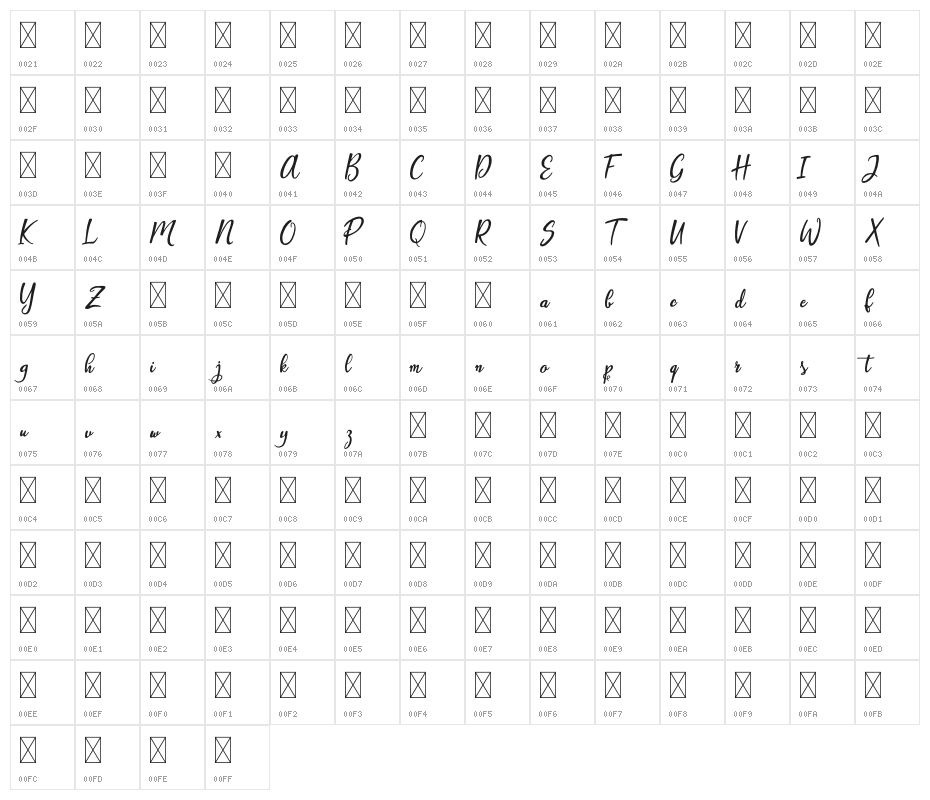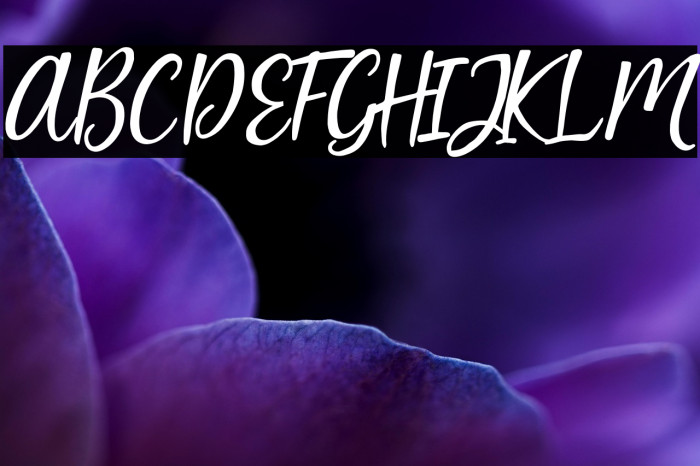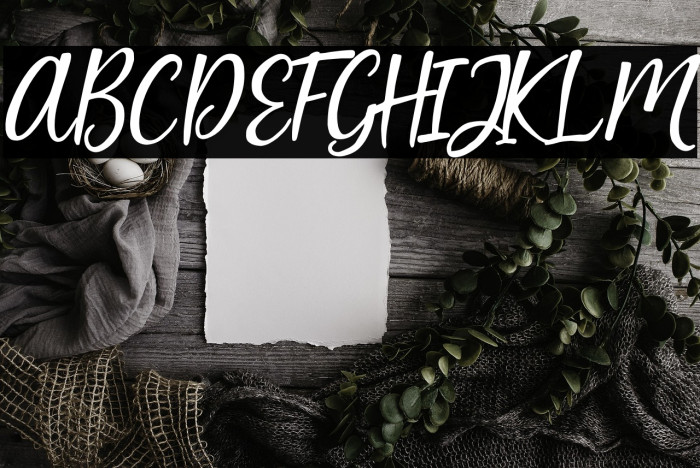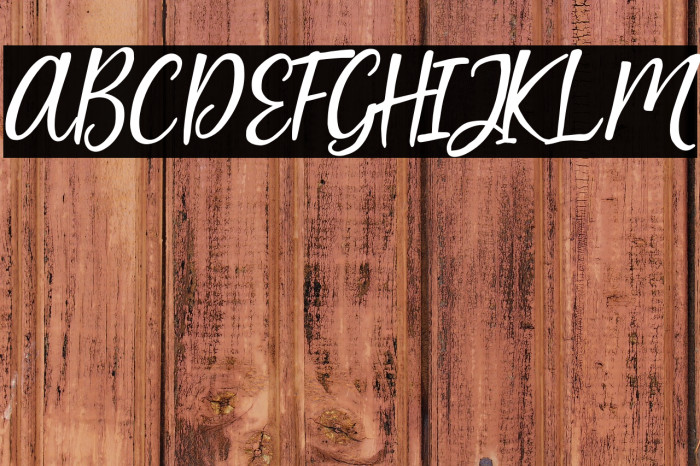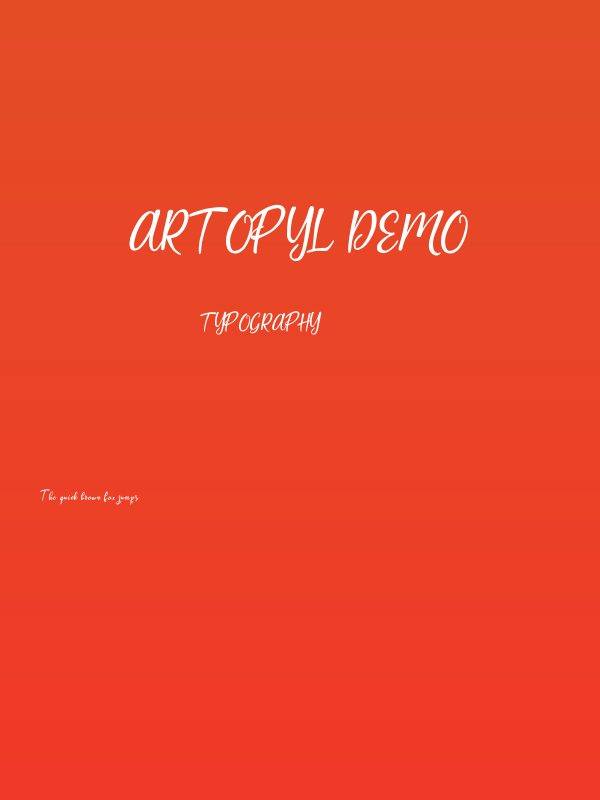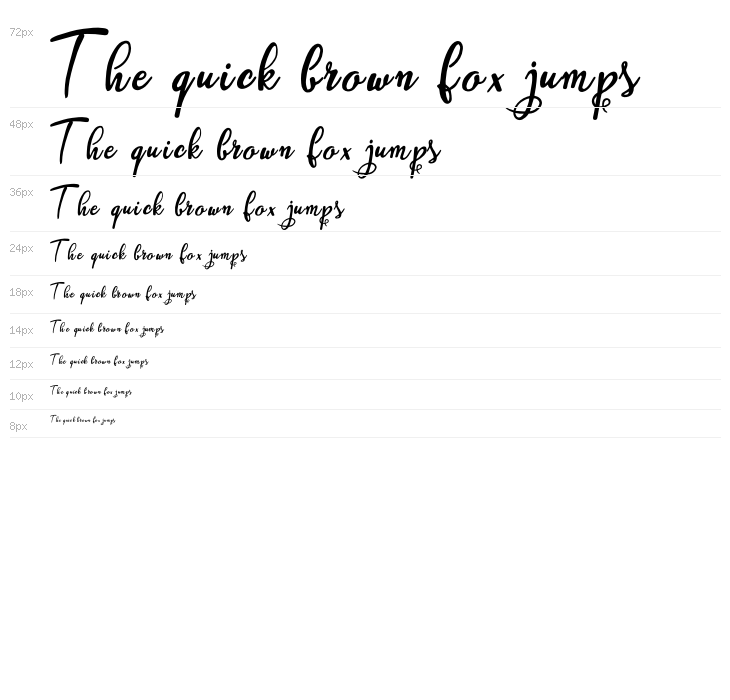
Artopyl Demo Font
Artopyl Demo Description
This font features a dynamic and expressive script style, characterized by fluid strokes and a handwritten appearance. The uppercase letters are bold and slightly slanted, giving a sense of movement and elegance. The lowercase letters maintain a consistent flow, with some characters featuring unique loops and swashes that add to the font's charm. The numbers and special characters are designed to match the overall aesthetic, ensuring a cohesive look. This font is perfect for projects that require a personal touch or a creative flair.
| Proposed Projects | Ideal for wedding invitations, greeting cards, branding, and social media graphics. |